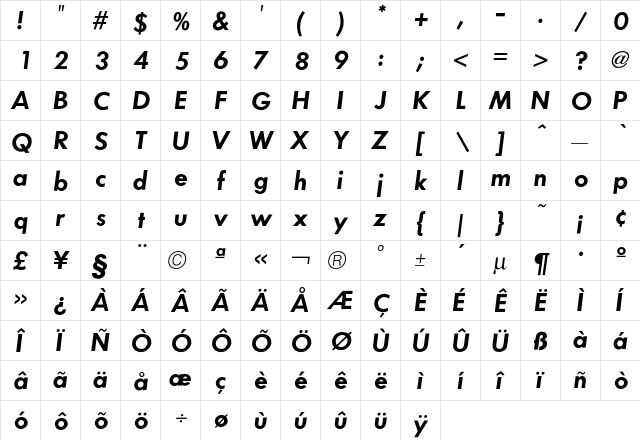
FuturaICG DemiOblique
Design Context for FuturaICG Typeface
FuturaICG channels digital-age aesthetics through its sharp, structured letterforms — ideal for brands that want to signal innovation. The dynamic lean of this cut emphasises speed and emphasis in any layout.
Pro Tip: Try FuturaICG with generous letter-spacing in UI labels and navigation — the geometric forms benefit from room to breathe.